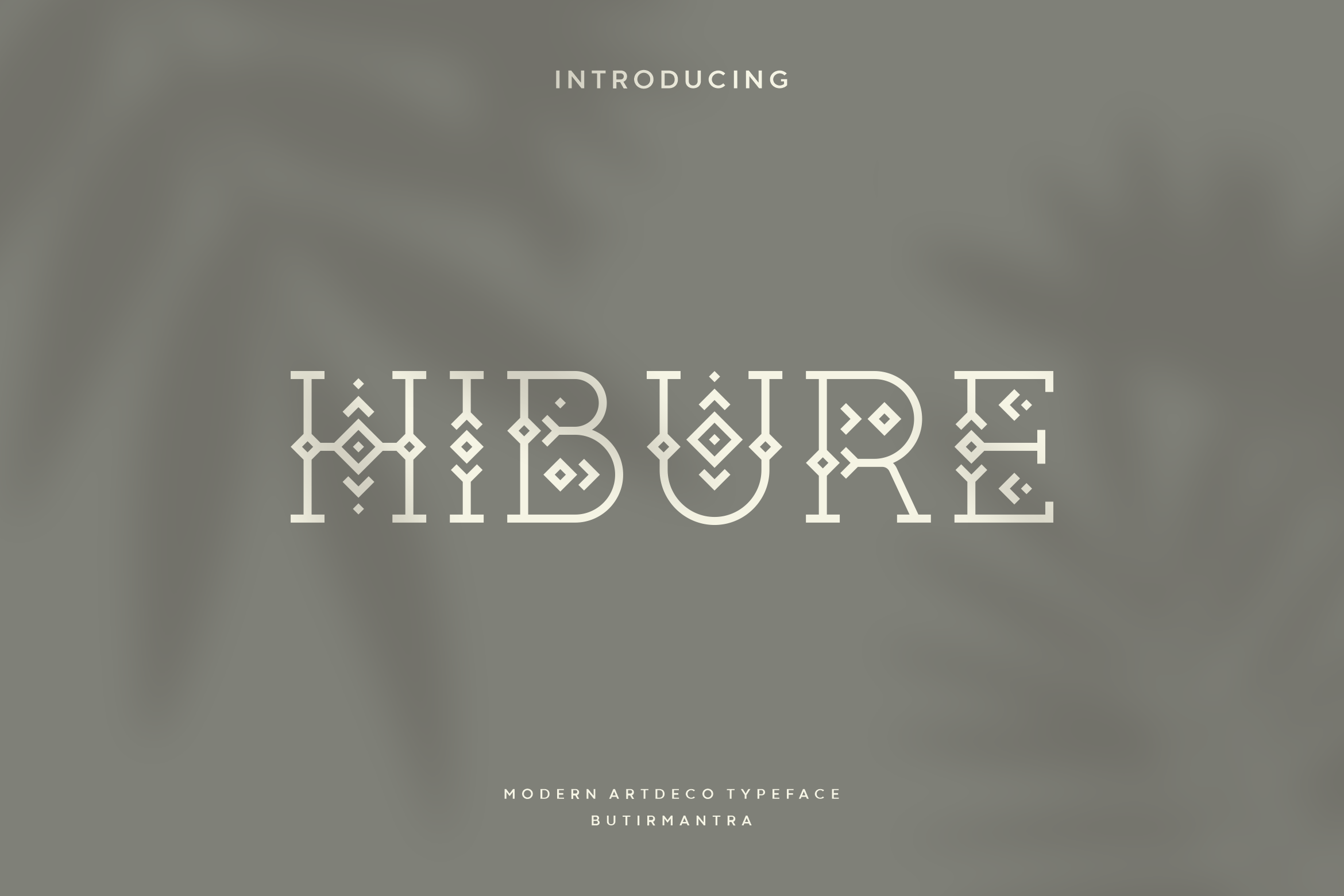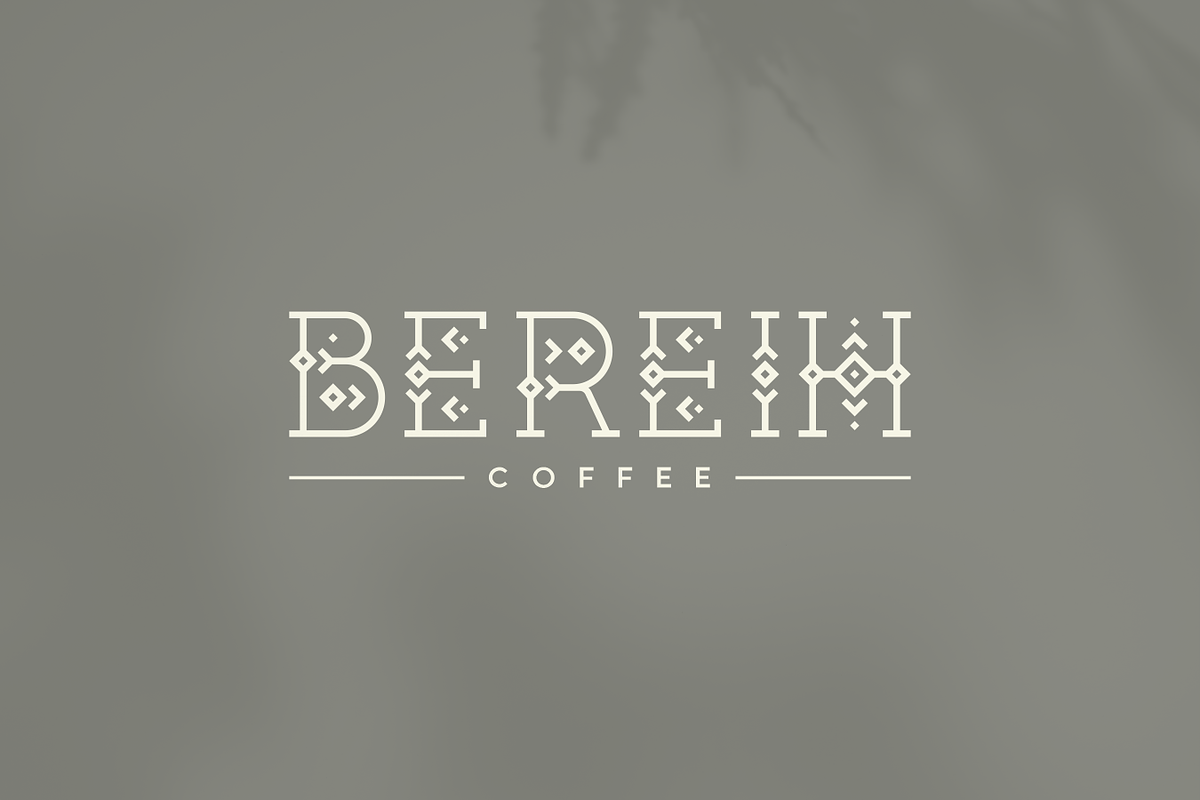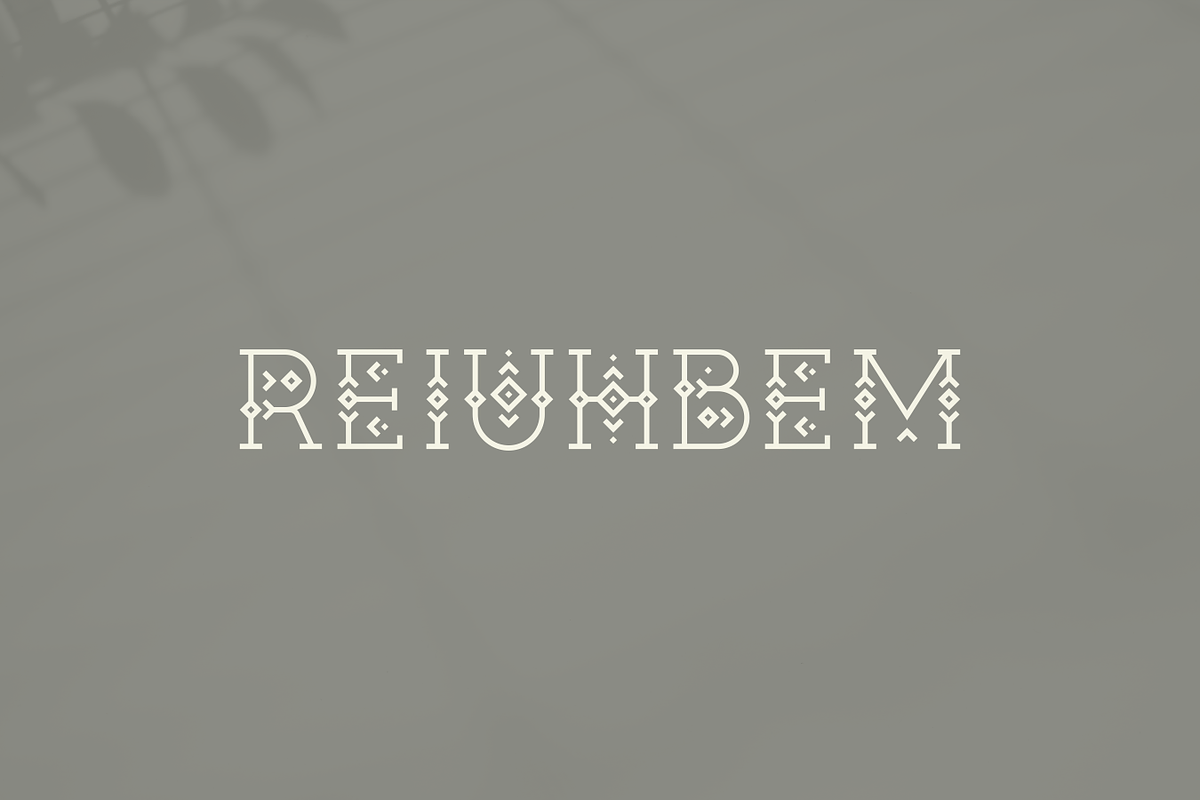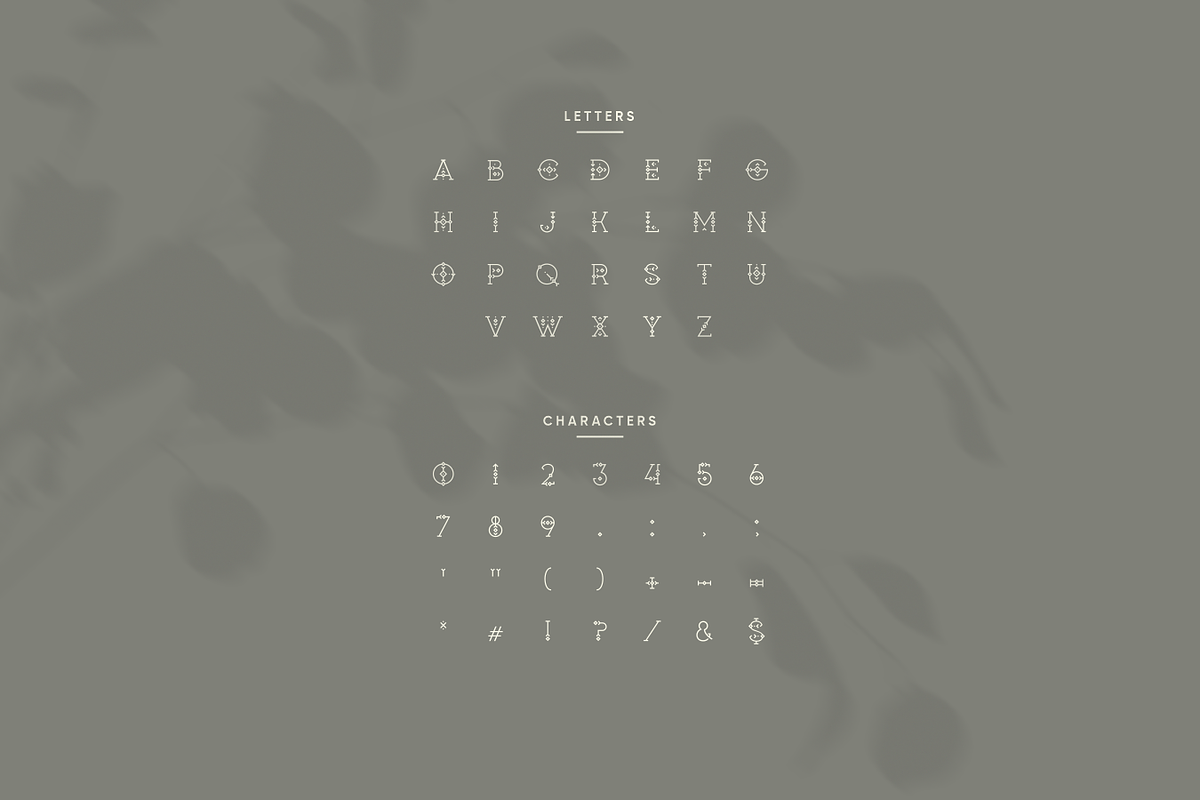
Hibure - Modern Artdeco Typeface
Hibure is a unique abstract decorative font, inspired by motifs from the past, bringing back the old vibes for a more modern and timeless style. This font will work great for crafts and tribe designs, it will be great for logos, headlines, magazines, posters, and anything that requires a unique geometric typeface with tribal motif. This font has unique and very dynamic uppercase characters, inspired by nordic bohemian runes and the glorious viking era of the past.